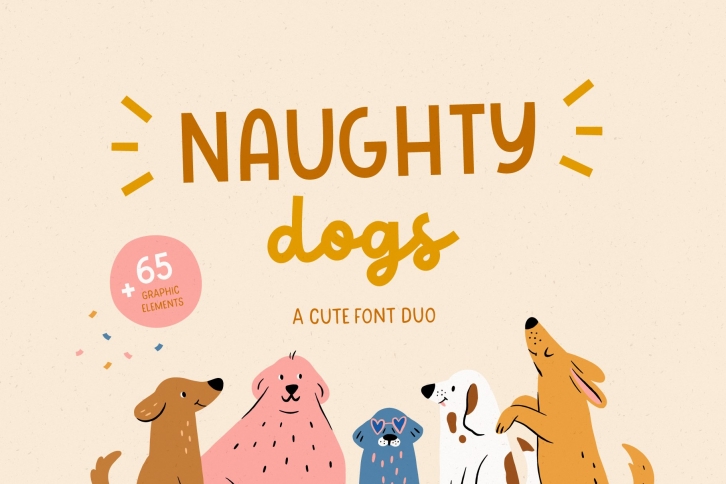
Naughty dogs is a great font that was designed by Angelina Kovel. Imagine the amount of combinations you can create using this font! The archive is 20.34 MB and it was released on May 31, 2022. Naughty dogs looks beautiful on wedding invitations, greeting cards, logos, posters, labels, t-shirt designs, logos, business cards and is perfect for use in ink or watercolor works, fashion, magazines, packaging and food menus, children's books and more!